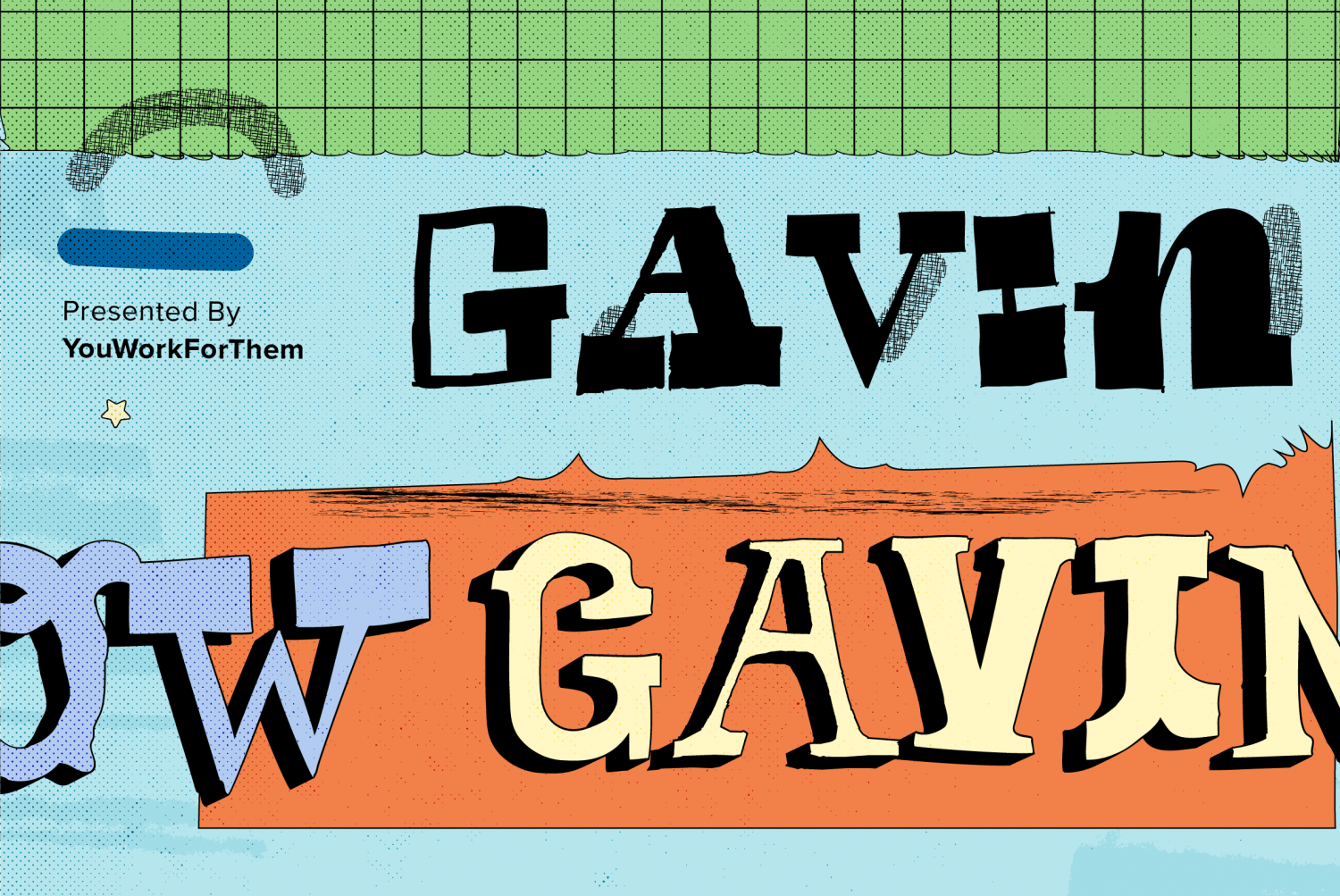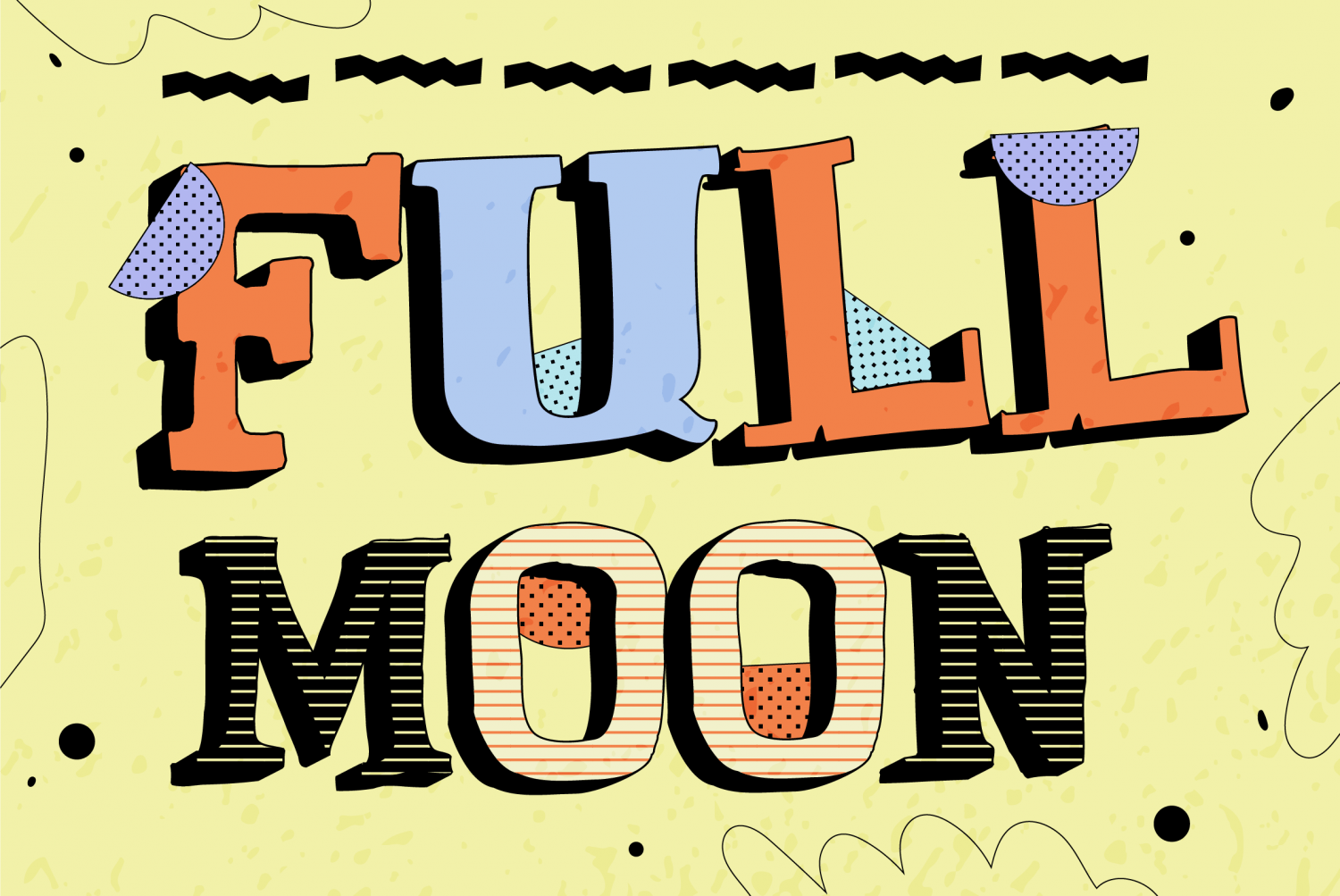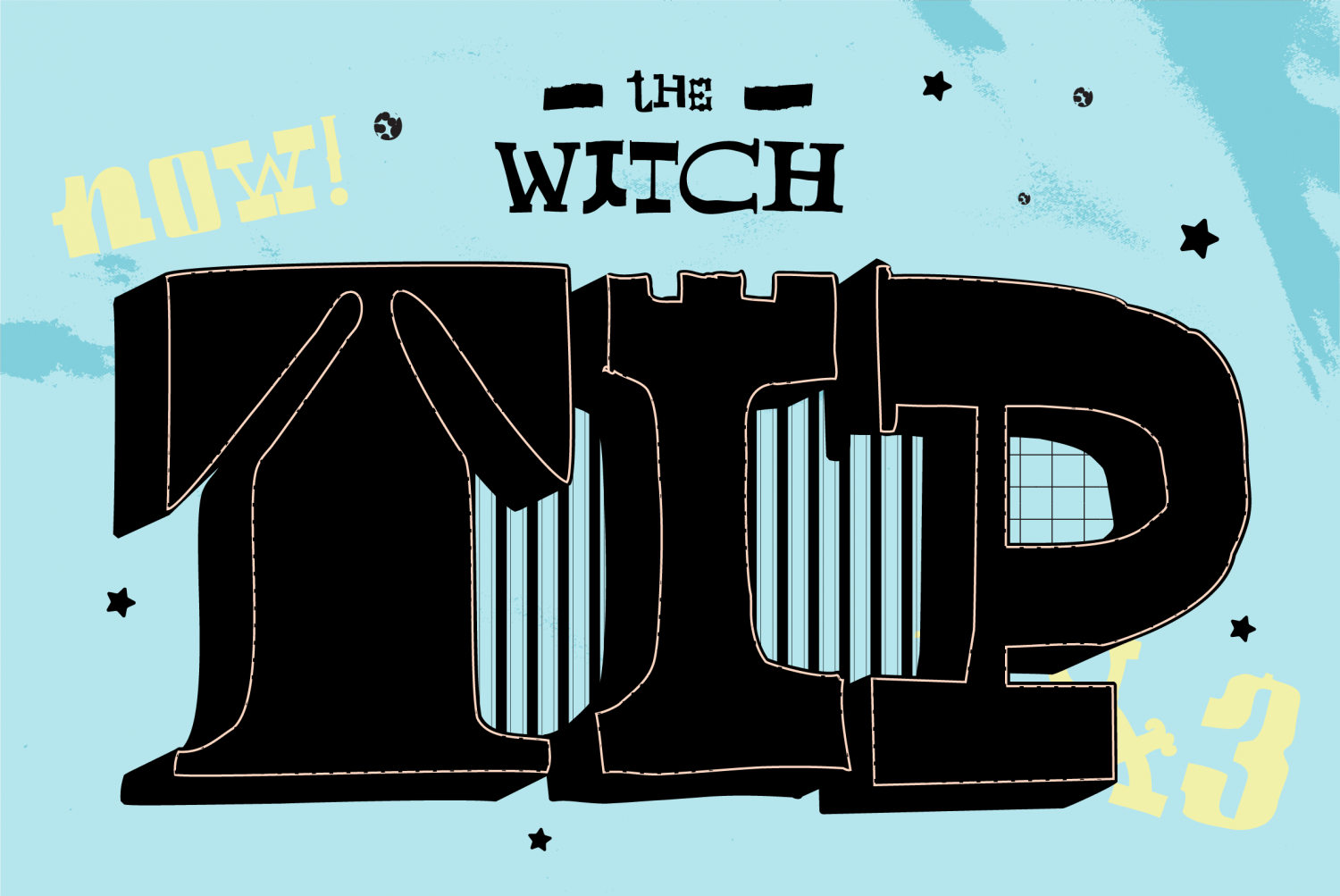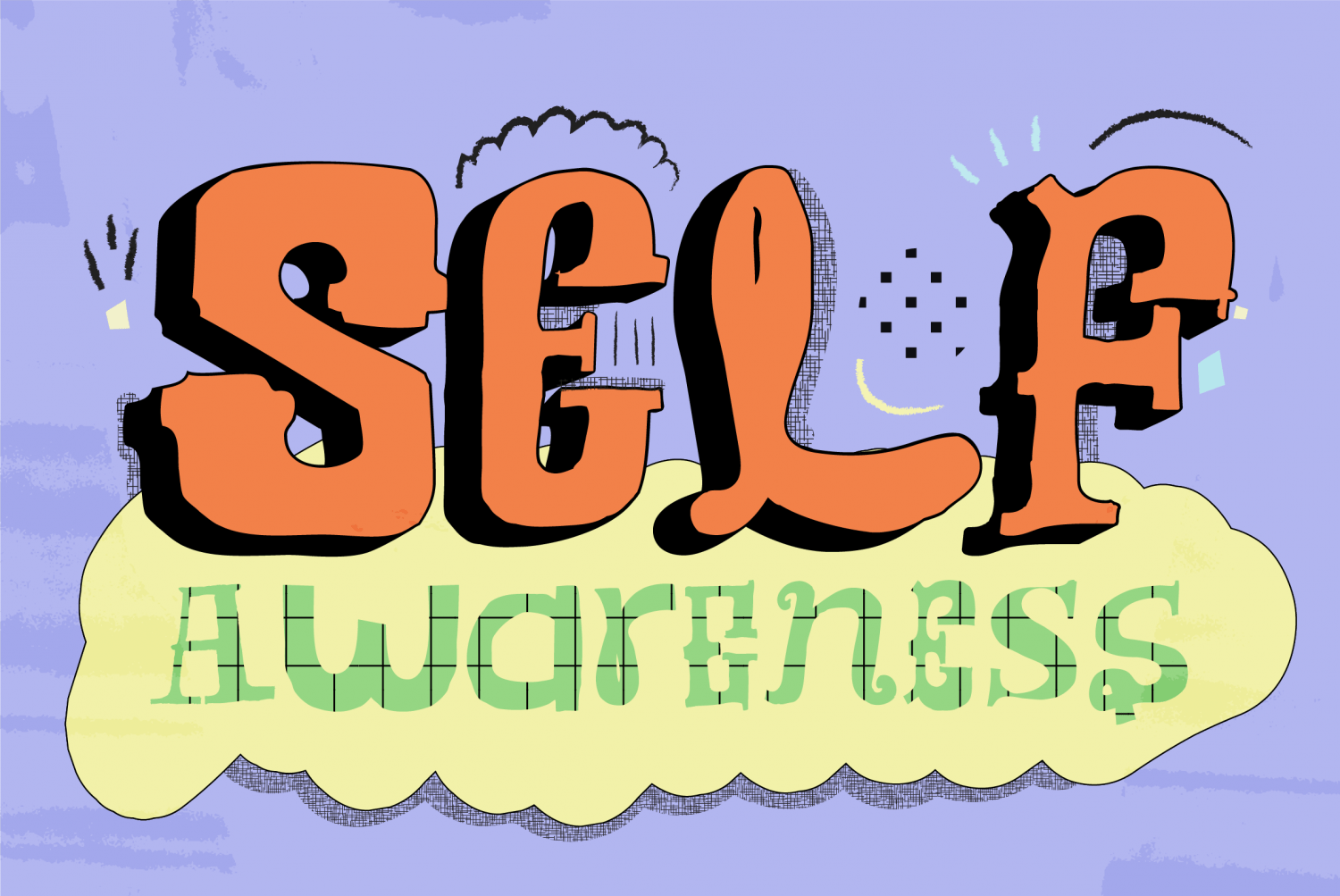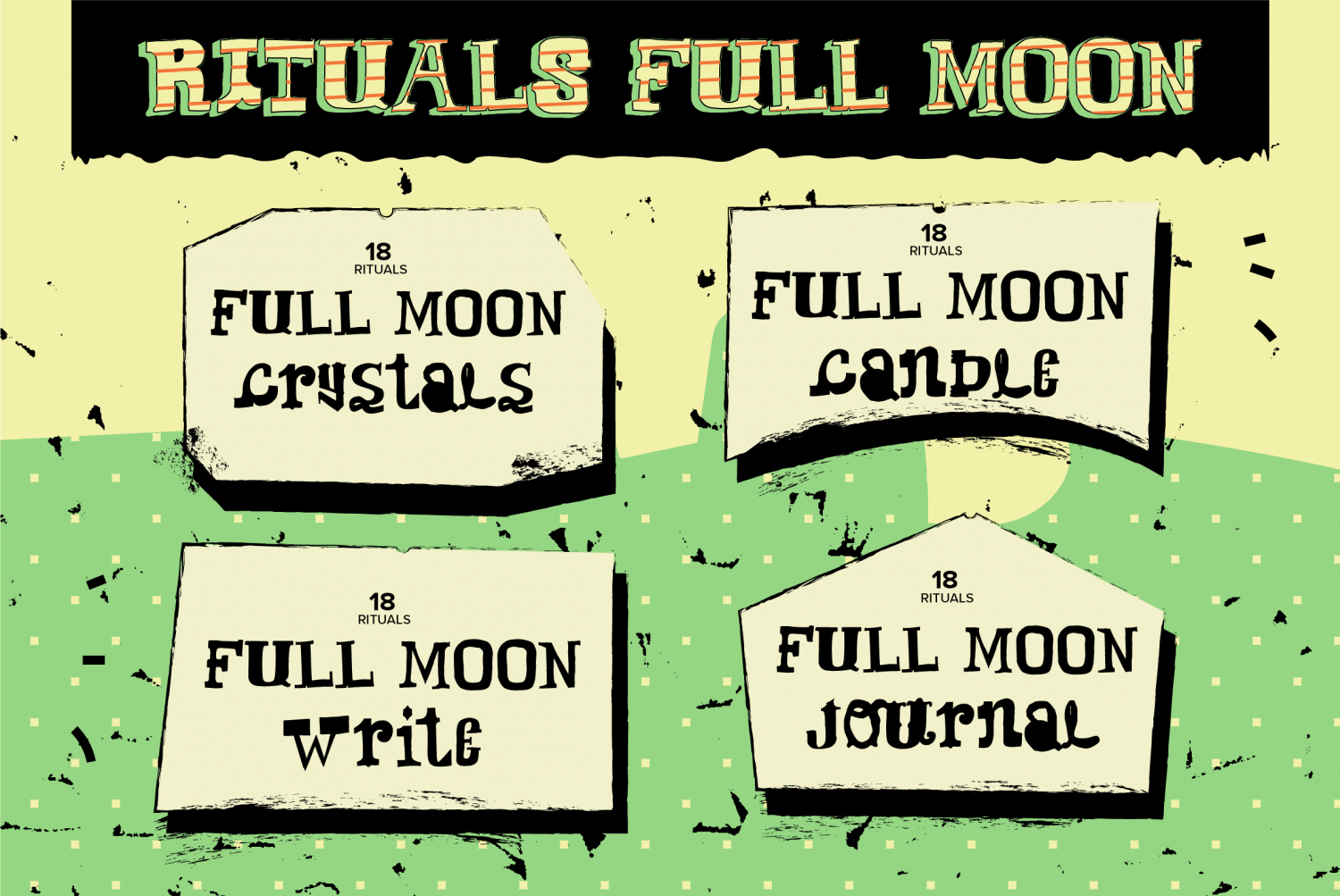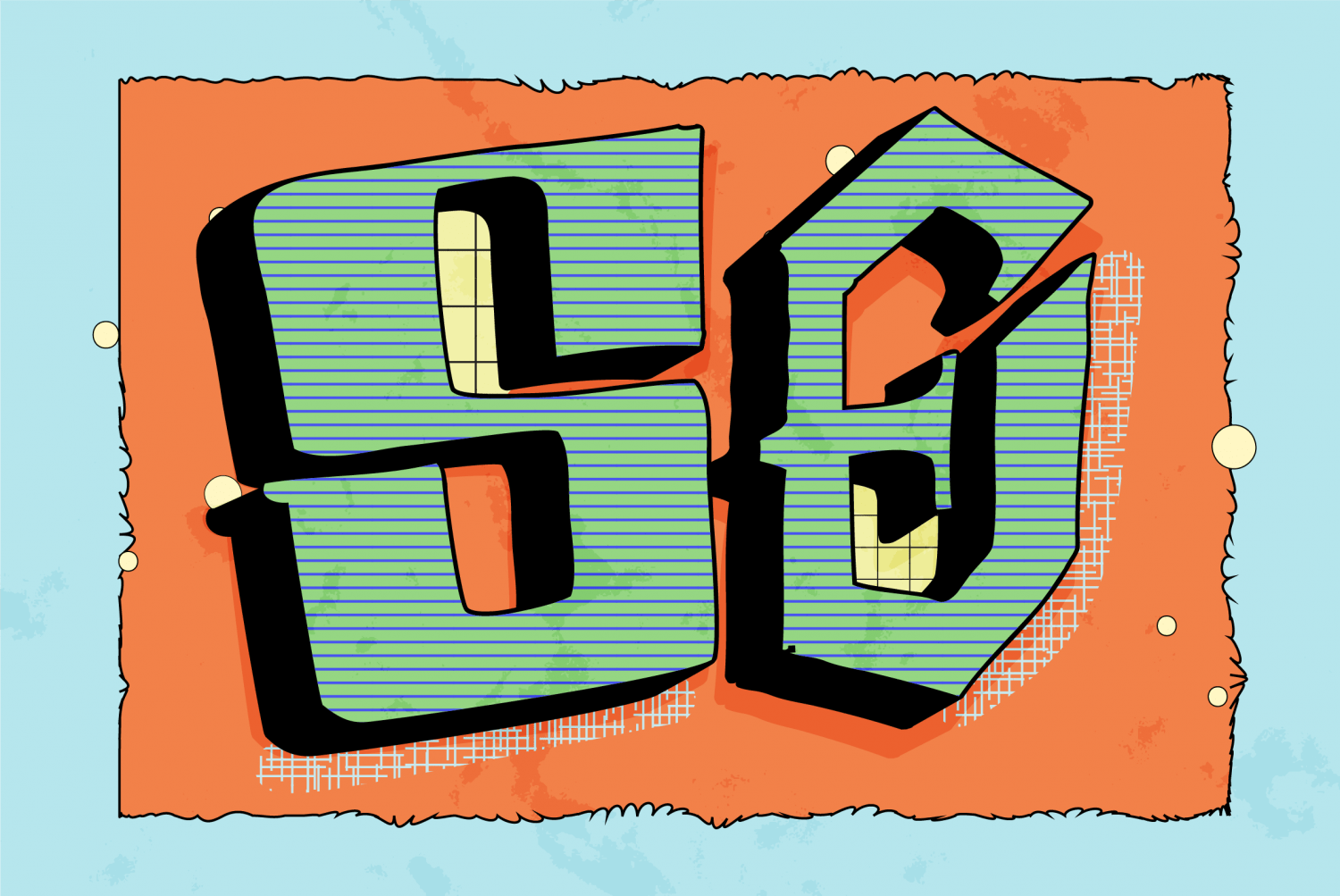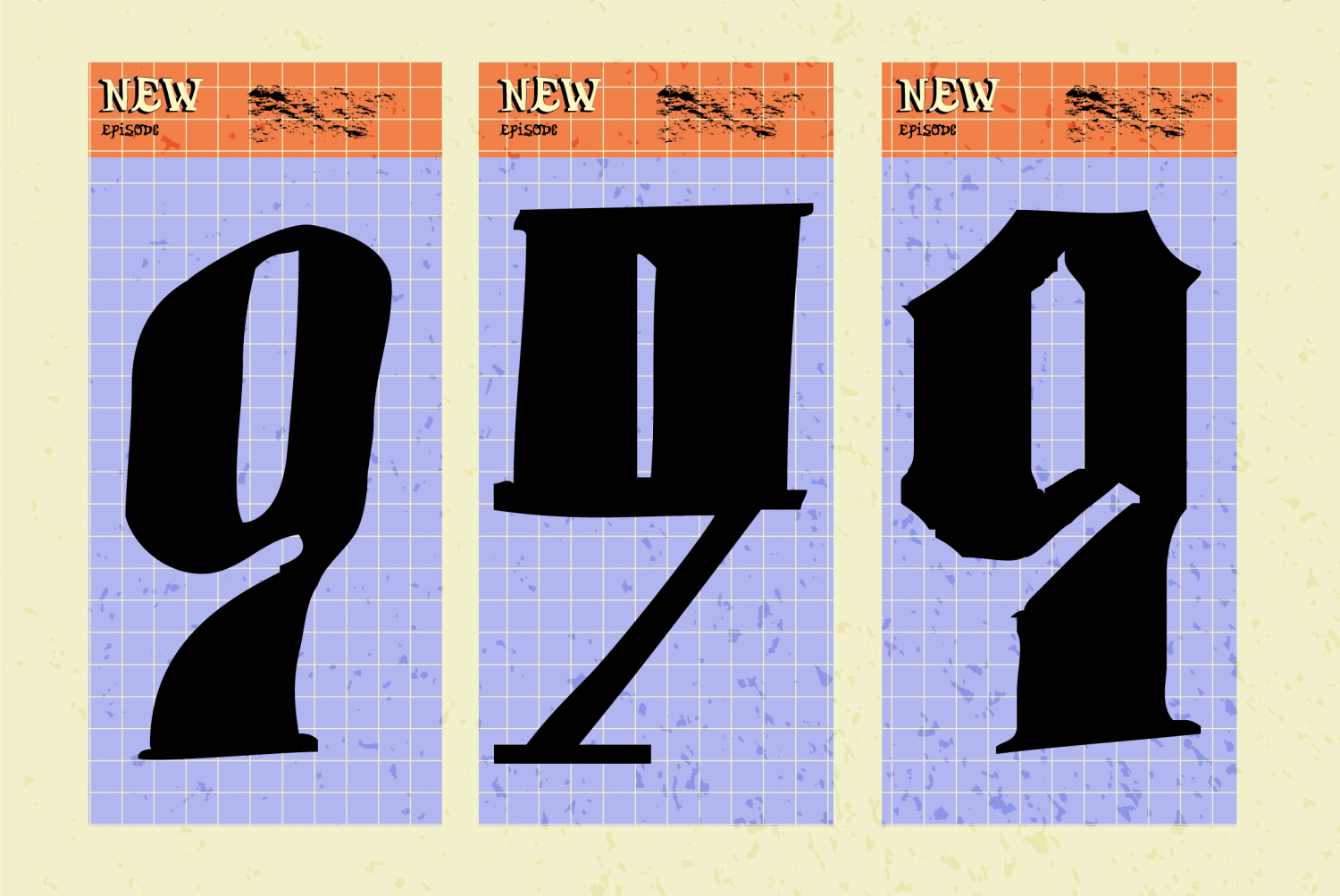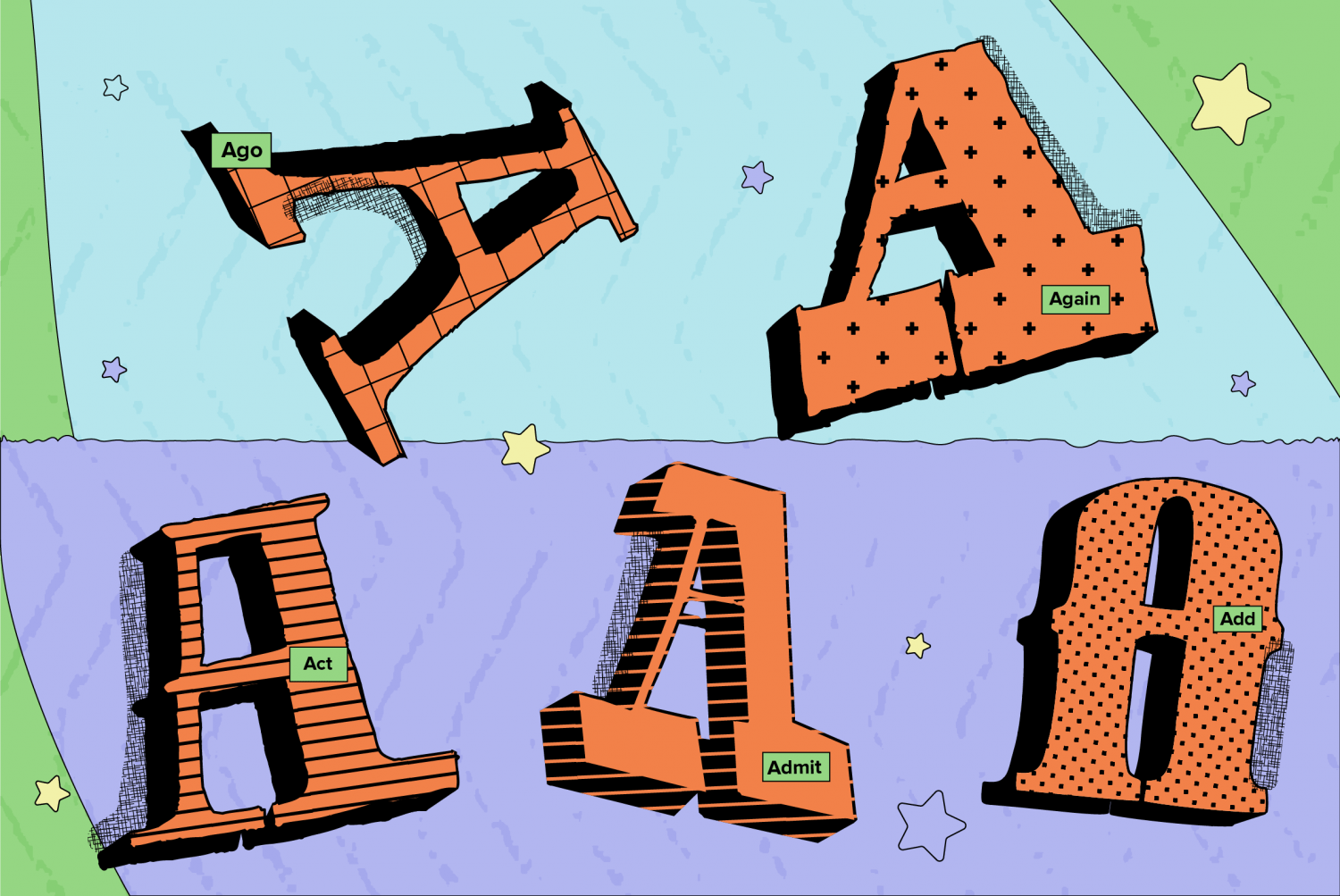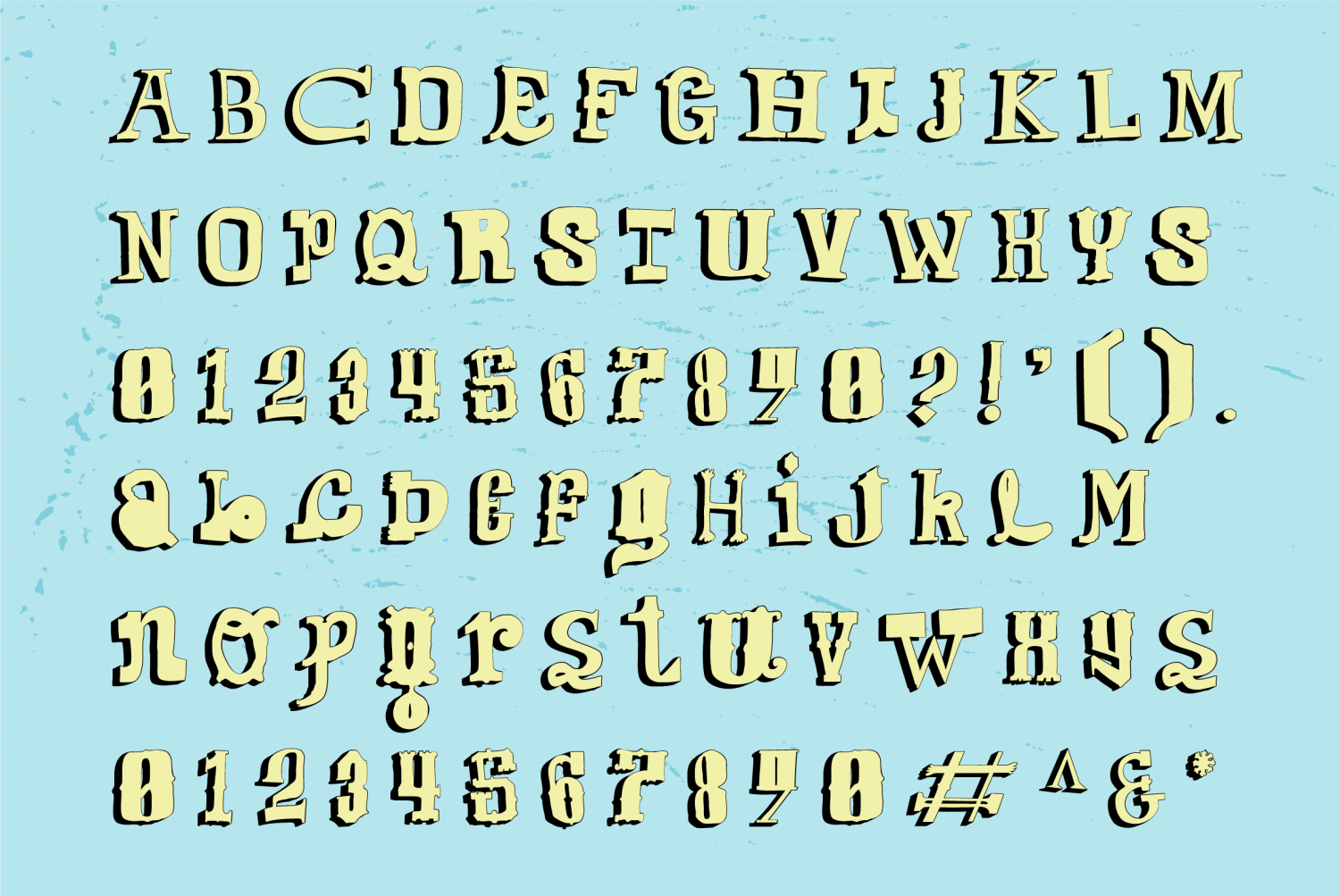
YWFT Gavin
Designed by YouWorkForThem, YWFT Gavin is an eccentric type design based on the handset graphic collection, Gavin. While those original vector illustrations began as a hand-drawn exploration of George Bruce's Seven-Line Pica, they eventually took on a life of their own.
YWFT Gavin carries the same ?Jekyll and Hyde? unpredictability as its namesake predecessor, updated into a contemporary font family that marches to the beat of its own drum.
With more than 1800 glyphs at your fingertips, YWFT Gavin is jam-packed with free-spirited characters that defy convention. This type family conveys every message with a playful quirkiness that makes a bold statement in headlines, advertising, logos, website designs, book covers, album artwork, promotional materials, and so much more.
Offering hundreds of stylistic alternates to choose from, YWFT Gavin provides extensive multilingual support for global accessibility.